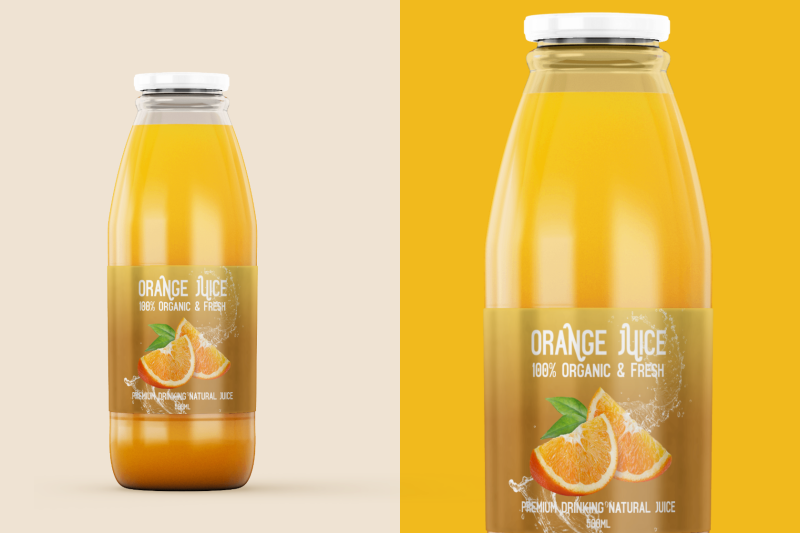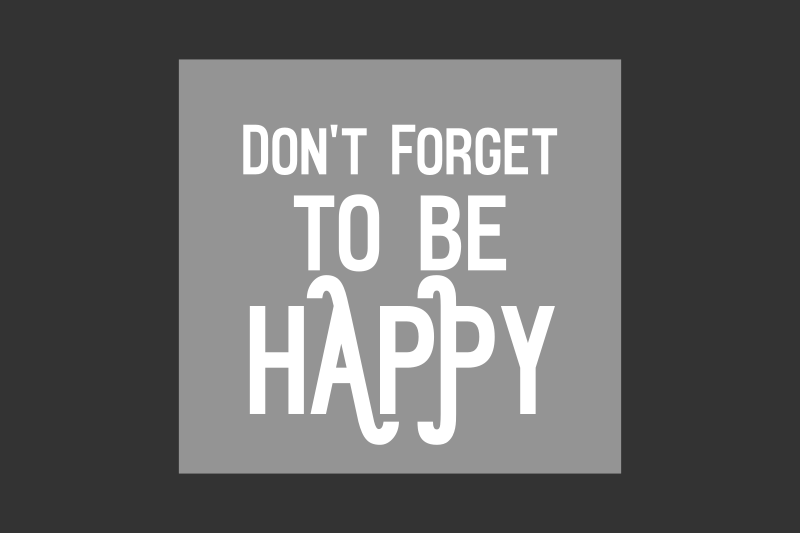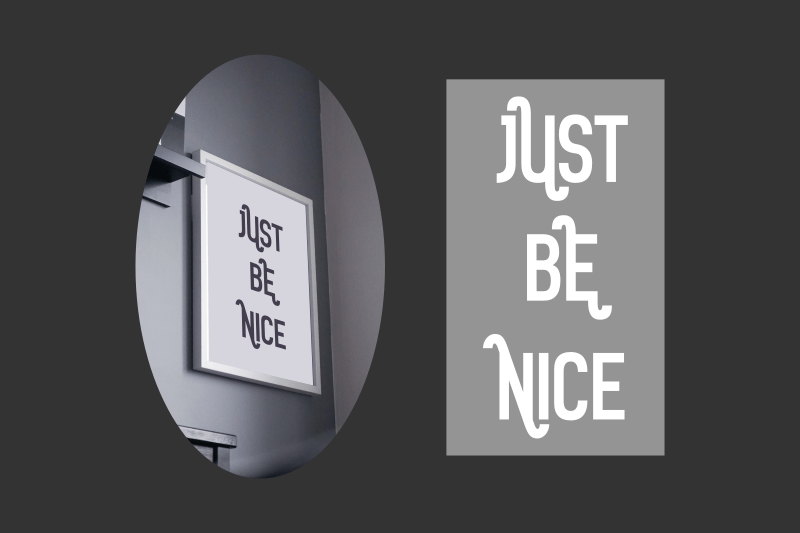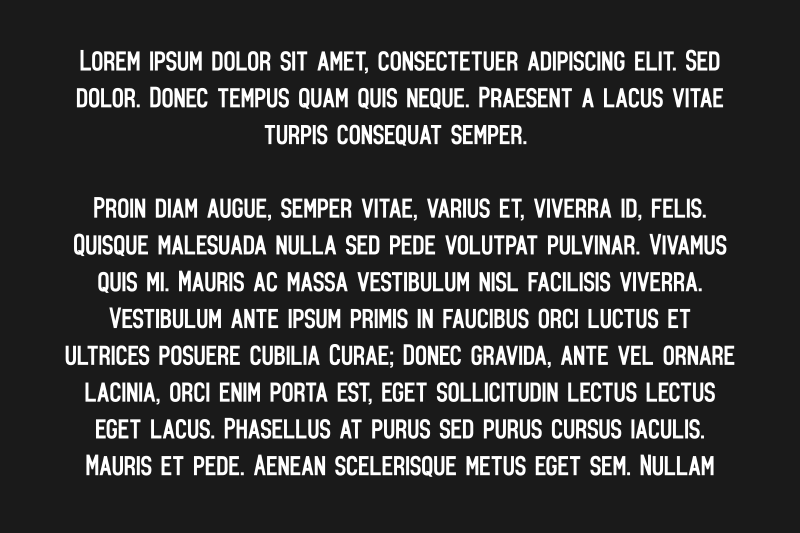
Bajigoor SW Font
Bajigoor SW Sans Serif Font
This is a bold and elegant sans serif font. It is PUA encoded which means you can access all of the glyphs and swashes with ease! Add it confidently to your projects, and you will love the results.